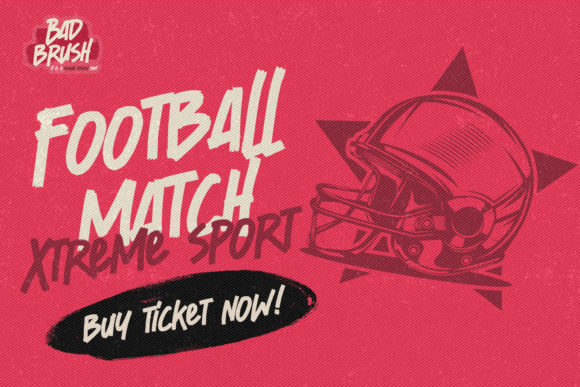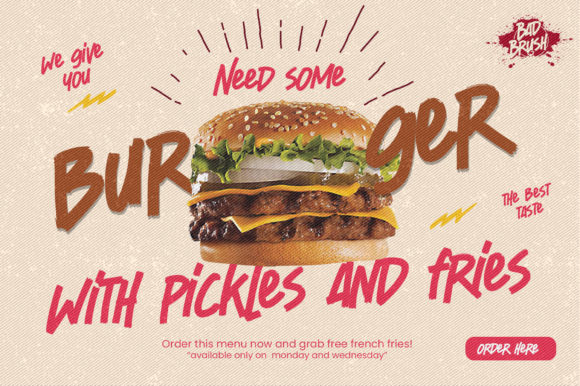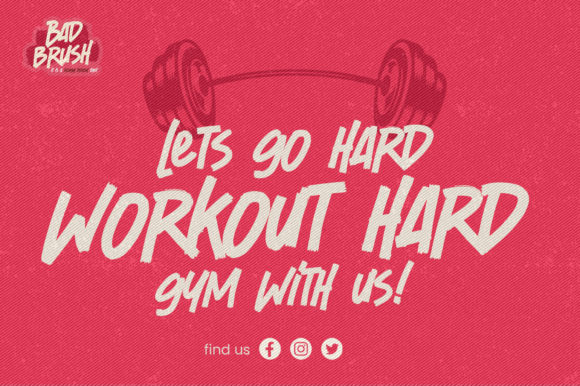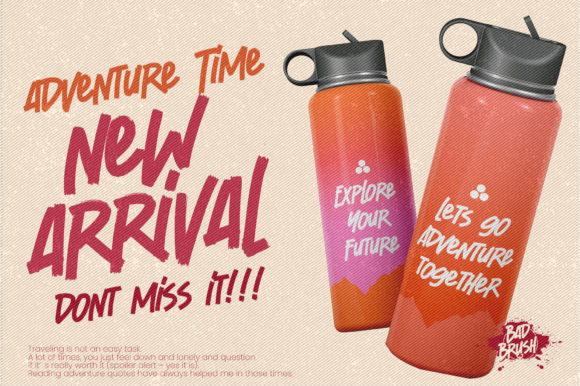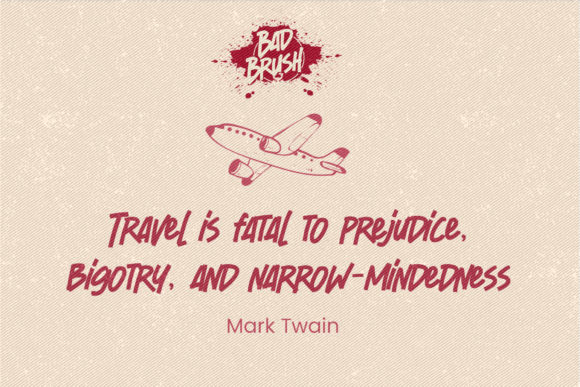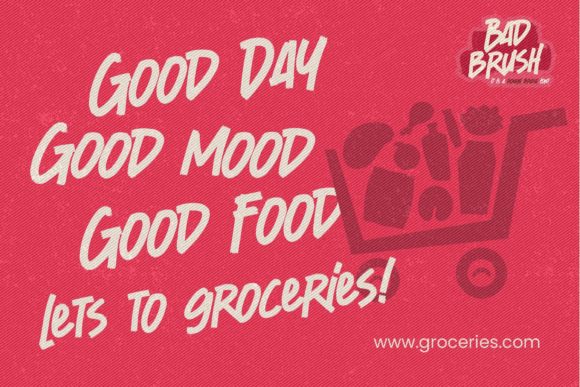
Introducing Bad Brush Font: The Perfect Addition to Your Creative Projects
Are you looking for a font that can add a touch of personality to your designs? Look no further than Bad Brush Font. This simple yet bold display font is perfect for a wide range of creative projects, from logos and branding to invitations and product packaging. With its charming, authentic, and relaxed look, Bad Brush Font is sure to take your work to the next level.
What Makes Bad Brush Font So Special?
Bad Brush Font is a handwritten font that boasts a unique and distinctive style. Its bold and expressive letters are perfect for making a statement, while its simple and clean lines ensure that it remains easy to read. Whether you’re looking to create a logo, design a poster, or craft a beautiful invitation, Bad Brush Font is the perfect choice.
One of the key benefits of Bad Brush Font is its versatility. It can be used for a wide range of projects, including:
- Logos and branding: Create a memorable and eye-catching logo that reflects your brand’s personality.
- Invitations and cards: Add a personal touch to your invitations and cards with this beautiful handwritten font.
- Product packaging: Make your products stand out with a unique and eye-catching font.
- Headers and logotypes: Create stunning headers and logotypes that showcase your brand’s personality.
- Letterheads and posters: Add a touch of elegance to your letterheads and posters with Bad Brush Font.
- Watermarks and photography: Use Bad Brush Font to add a subtle yet stylish touch to your watermarks and photography.
- Advertisements and product designs: Create eye-catching advertisements and product designs that grab attention.
- Stationery and wedding designs: Add a touch of romance and elegance to your stationery and wedding designs.
- Labels and special events: Use Bad Brush Font to create beautiful and eye-catching labels and event materials.
The Benefits of Using Bad Brush Font
So why should you choose Bad Brush Font for your next creative project? Here are just a few of the benefits of using this amazing font:
- Unique and distinctive style: Bad Brush Font boasts a unique and distinctive style that will set your work apart from the crowd.
- Easy to read: Despite its bold and expressive letters, Bad Brush Font remains easy to read, making it perfect for a wide range of projects.
- Versatile: Bad Brush Font can be used for a wide range of projects, from logos and branding to invitations and product packaging.
- Charming and authentic look: Bad Brush Font has a charming and authentic look that will add a touch of personality to your designs.
- Experiment with different sizes and colors: Bad Brush Font looks great in a wide range of sizes and colors, so don’t be afraid to experiment.
- Use it with other fonts: Bad Brush Font pairs well with a wide range of other fonts, so try using it with other fonts to create a unique and eye-catching look.
- Pay attention to spacing and kerning: Make sure to pay attention to spacing and kerning to ensure that your text looks professional and polished.
If you’re looking for a font that can add a touch of personality to your designs, look no further than Bad Brush Font. With its unique and distinctive style, versatility, and charming and authentic look, Bad Brush Font is the perfect choice for a wide range of creative projects. So why wait? Try Bad Brush Font today and see the difference it can make in your work.
Whether you’re a designer, crafters, or just someone who loves to create, Bad Brush Font is sure to become a favorite in your collection. So go ahead, get creative, and see what amazing things you can create with Bad Brush Font.